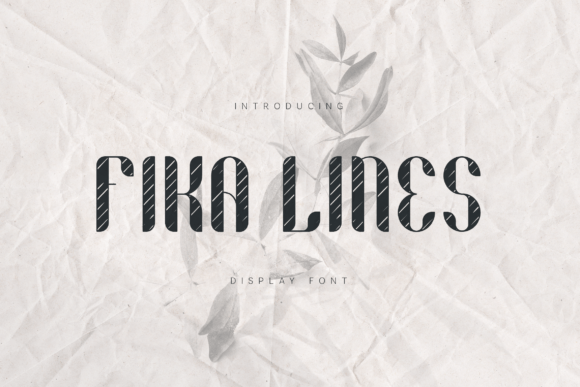
Fika Lines: A Display Font That Commands Attention
It was 3:47 p.m. on launch day—my laptop open to a half-finished Instagram carousel for a new online course series. The headline needed to feel urgent but elegant, modern but warm. I cycled through three fonts before landing on Fika Lines. Instantly, the layout clicked: narrow letterforms, smooth rounded curves, that subtle textured grain—like ink pressed just right onto matte paper. Not flashy. Not cold. Just present.
What Fika Lines Actually Feels Like in Motion
Fika Lines is a display font built for moments where typography must do more than label—it must anchor tone and intention. Its condensed proportions give it vertical presence without crowding; its rounded terminals soften sharpness without sacrificing clarity. That “textured aesthetic” isn’t noise—it’s quiet tactility, like a well-printed boutique poster or a curated Pinterest pin you pause on mid-scroll.
It doesn’t shout. It leans in. And because of that, it works hardest when paired with clean, functional supporting type—think a neutral sans serif for body copy or captions. In practice, Fika Lines shines as a visual signature: a course title on a YouTube thumbnail, a seasonal sale banner over a lifestyle photo, or the bold header in an email promo that stops thumbs from swiping past.
Where It Delivers—And Where It Doesn’t
In digital ad layouts? Yes—especially for vertical banners (9:16) or mobile-first placements where height matters more than width. Its tall, narrow shape fits neatly into tight spaces while still reading clearly at 48–64px on screen. On a dark background? The texture adds depth without muddying contrast. On light backgrounds with soft shadows? It gains gentle dimension—no heavy outlines needed.
But here’s the honest part: Fika Lines isn’t built for paragraphs. Don’t drop it into product descriptions, webinar agendas, or multi-line testimonials. It’s not a workhorse—it’s a spotlight. Use it for:
- YouTube thumbnail text (max 3–5 words)
- Instagram Reels cover frames (especially with minimal imagery)
- Pinterest pin titles (where vertical rhythm supports scroll behavior)
- Webinar or workshop banners (paired with a legible sans serif subhead)
- Branded template packs—think quote graphics or content-series headers
It also holds up beautifully in print contexts: packaging accents, editorial mastheads, or limited-run merch labels. But skip it for formal reports, legal disclaimers, or anything requiring dense, rapid scanning.
Real Pairings That Keep It Grounded
I tested Fika Lines across six campaign assets last month—and every time, pairing mattered more than weight or size. My go-to combo? Fika Lines (Regular or Bold) + Inter (SemiBold or Regular). Inter’s open counters and even spacing let Fika Lines breathe, while its neutrality prevents visual competition. For warmer brand voices, I’ve layered it with a restrained serif like IBM Plex Serif—not for contrast, but for tonal balance.
Avoid pairing it with other textured or highly stylized fonts. No double-script combos. No ultra-thin sans serifs that vanish beside its presence. And never force it into tight tracking—its charm lives in measured space between letters. Let those rounded curves have room.
Practical Checks Before You Drop It In
Before using Fika Lines in client work, templates, or ads, I always scan for four things:
- Weights & alternates: The standard set includes Regular and Bold—but check if stylistic alternates (like a tighter ‘a’ or modified ‘g’) are included. They’re small details, but they matter in logo-style treatments.
- Language support: If your audience spans EU or LATAM markets, verify Latin Extended-A coverage. Fika Lines handles basic accented characters well—but double-check diacritics for names or localized terms.
Also worth noting: Fika Lines performs consistently across browsers and devices, but I still preview every Instagram Story or email banner on both iOS and Android. Its texture reads cleanly at scale, but tiny overlays (under 32px) lose definition fast—so reserve it for headlines, not footnotes.
Why It Fits Right Now
We’re deep in an era where audiences scroll faster, decide quicker, and respond to authenticity—not polish alone. Fika Lines lands in that sweet spot: refined enough for premium positioning, human enough to avoid sterility. It doesn’t try to be everything. It knows its role—to frame, focus, and elevate.
Whether you’re designing a limited-time shop campaign, building a branded content series, or prepping a set of YouTube thumbnails for a new season, Fika Lines gives you a quiet confidence in your hierarchy. Not because it’s loud—but because it’s intentional. And in campaign design, that kind of restraint is rare, useful, and quietly powerful.